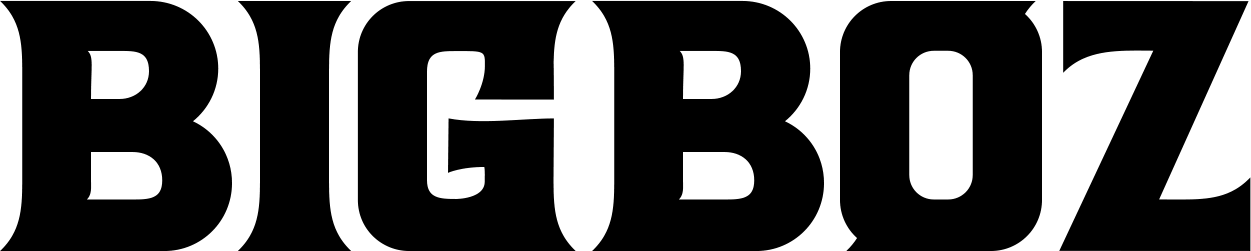
Bigboz Font
Bigboz is a thick and bold fancy font but this font doesn’t contain all the characters like lowercase and some other characters. It has a retro sense that makes it a good choice for using it for designing a brand or a logo.
This typography font gives you an established and trustworthy feeling that you want anyone who sees your logo to experience this kind of sense.